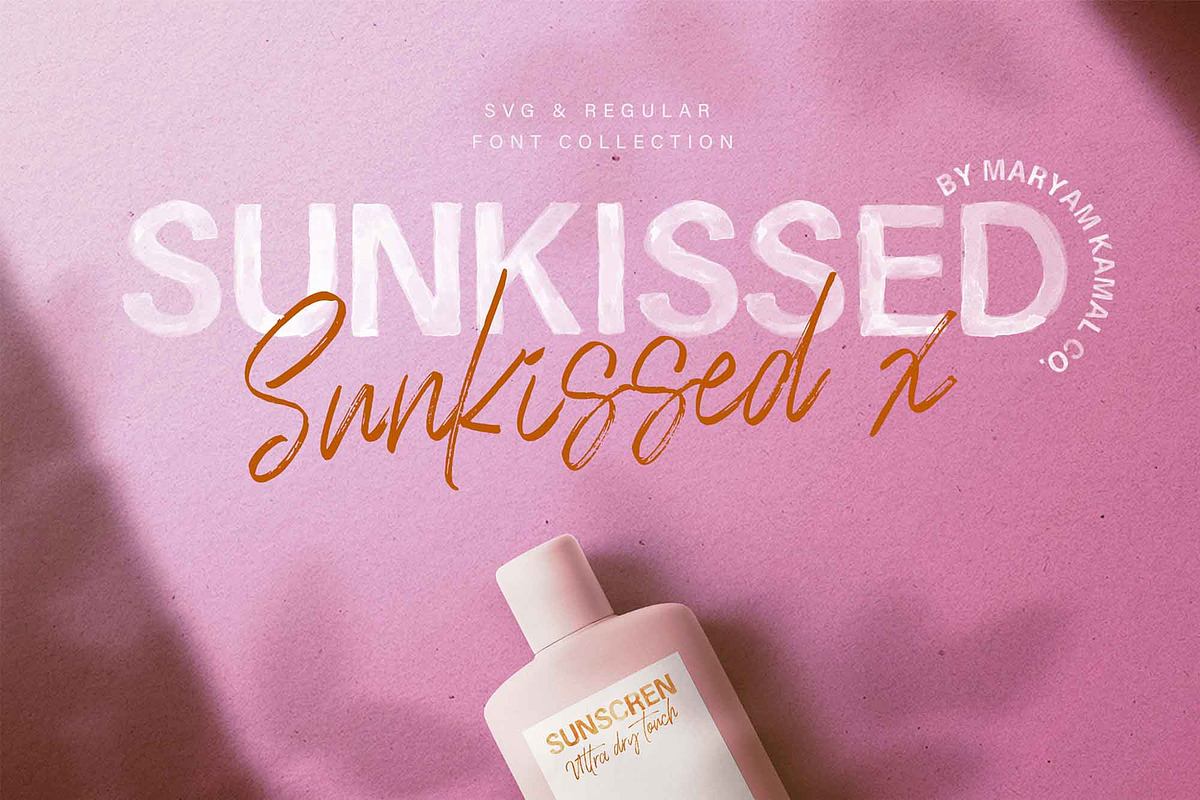
The Sunkissed x Font Duo Free Download is a vibrant and elegant combination of two beautiful typefaces—one playful script and one clean sans-serif—designed to work harmoniously together. Perfect for branding, logos, social media graphics, invitations, and more, this duo brings warmth and personality to your designs.
The Sunkissed Script font features smooth, flowing letterforms with a relaxed, handwritten touch, while the Sunkissed Sans font offers a clean, modern complement with its simple, geometric letterforms. Together, they create a perfect balance of elegance and playfulness.
The duo includes uppercase and lowercase letters, numbers, punctuation, and multilingual support, making it versatile for various creative projects.